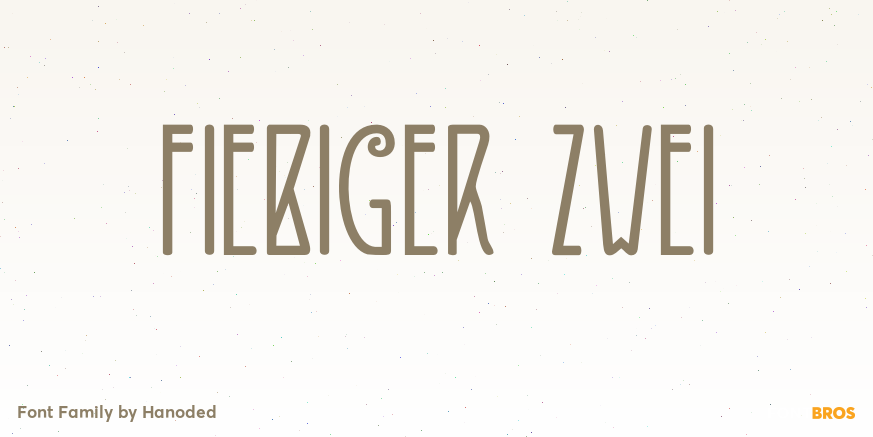
Fiebiger Zwei
About Fiebiger Zwei
Franz Fiebiger (1880 – 1932) was an Austrian painter and designer who was associated with the Vienna Secession. In 1908 he created a beautiful poster for the Kaiserjubil